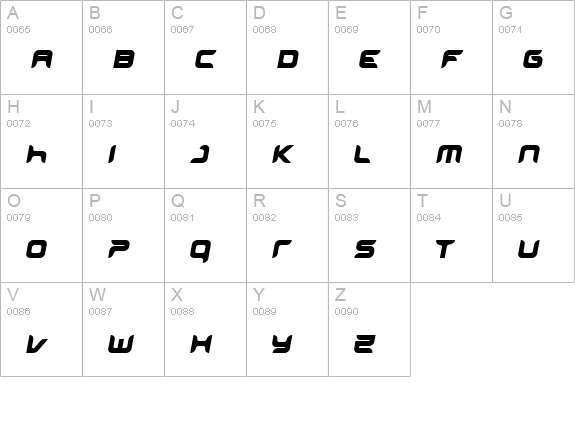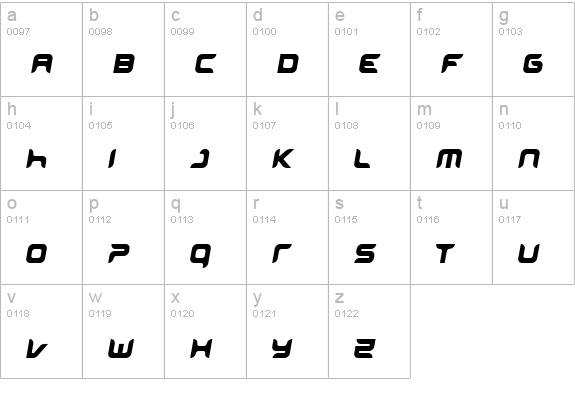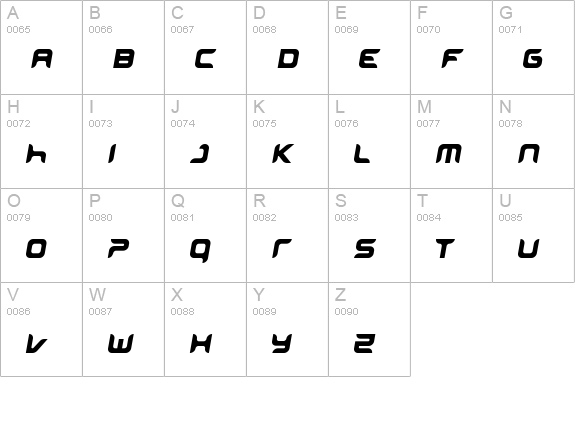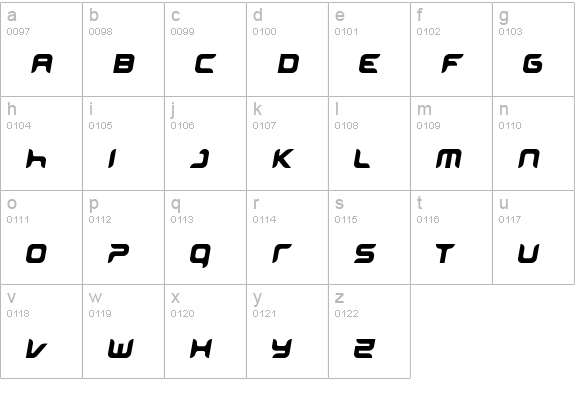
miniskip Font Details
Introducing Miniskip Font, a trendy and modern typeface that exudes a playful and youthful charm. With its clean lines and sleek design, Miniskip Font is perfect for adding a touch of fun to your projects. This versatile font is ideal for a variety of applications, from branding and advertising to social media graphics and more. What's even better is that Miniskip Font is available for free download at FontsMarket.com! So go ahead and give your designs a fresh and stylish look with this delightful typeface. Grab your copy now and start creating eye-catching visuals that will captivate your audience.